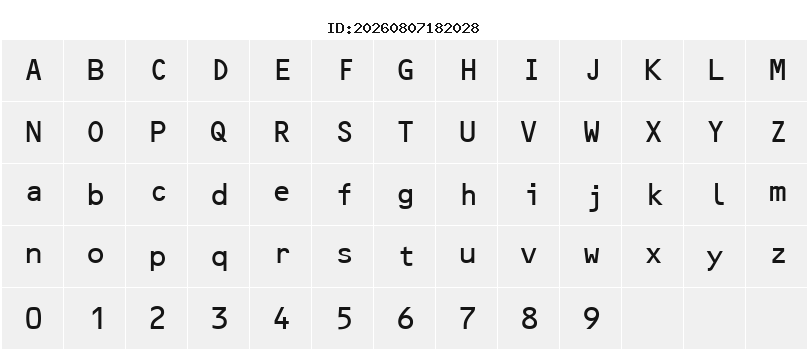
OCRBLetM Preview
About OCRBLetM.ttf
OCRBLetM.ttf is a modern, elegant sans-serif font designed for ultimate readability and visual harmony. Perfect for branding, headlines, web design, and print materials.